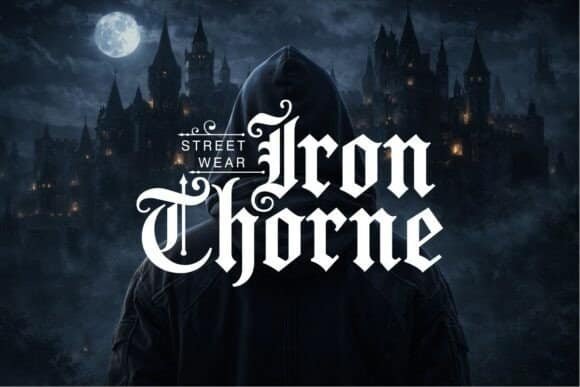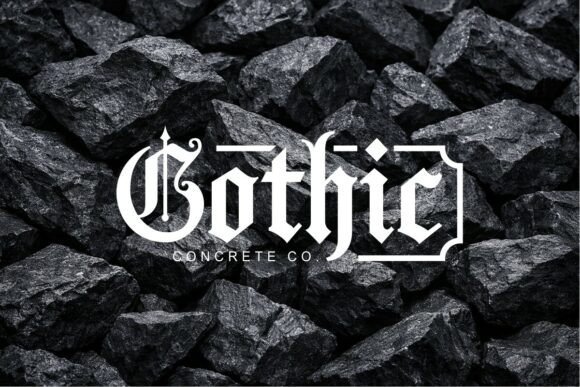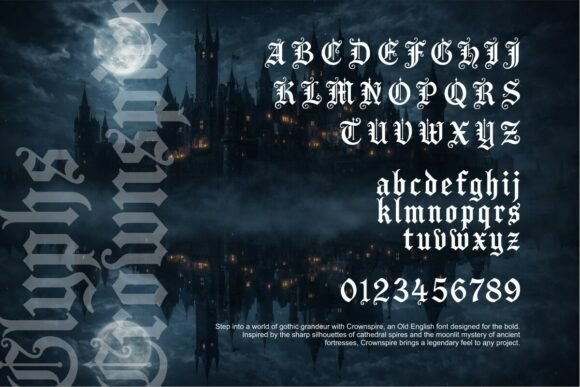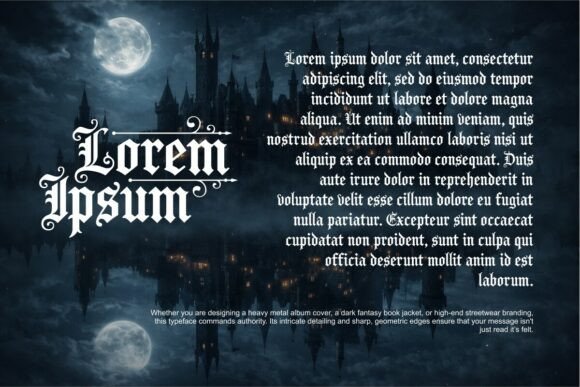
Crownspire Font
Crownspire is a modern reimagining of the classic Old English and Blackletter styles. It strikes a perfect balance between medieval tradition and sharp, contemporary design. With its high-contrast strokes, aggressive terminal points, and elegant flourishes, it feels both prestigious and formidable. Step into a world of gothic grandeur with Crownspire, an Old English font designed for the bold. Inspired by the sharp silhouettes of cathedral spires and the moonlit mystery of ancient fortresses, Crownspire brings a legendary feel to any project. Whether you are designing a heavy metal album cover, a dark fantasy book jacket, or high-end streetwear branding, this typeface commands authority. Its intricate detailing and sharp, geometric edges ensure that your message isn’t just read it’s felt. Vibe: Gothic, Heroic, Mysterious, and Timeless. Perfect for: Logos, Gaming Titles, Apparel Design, and Poster Art.